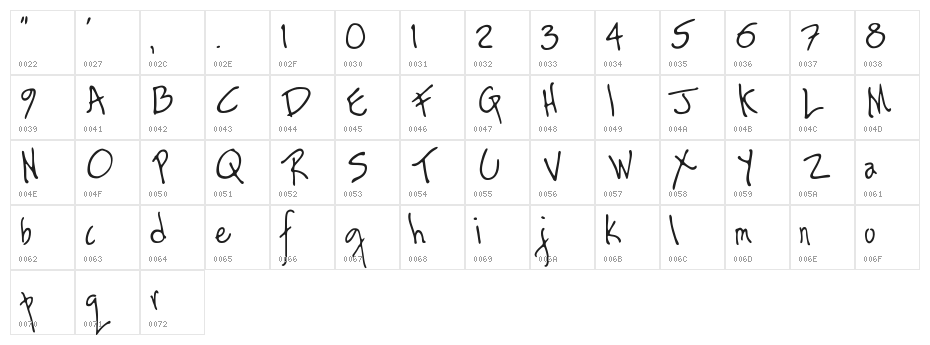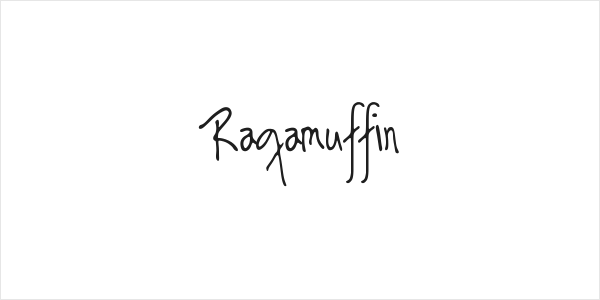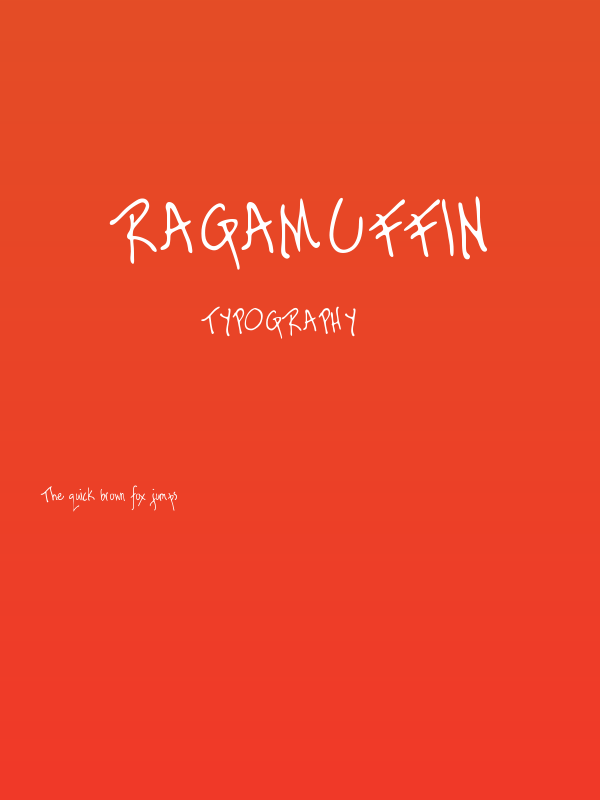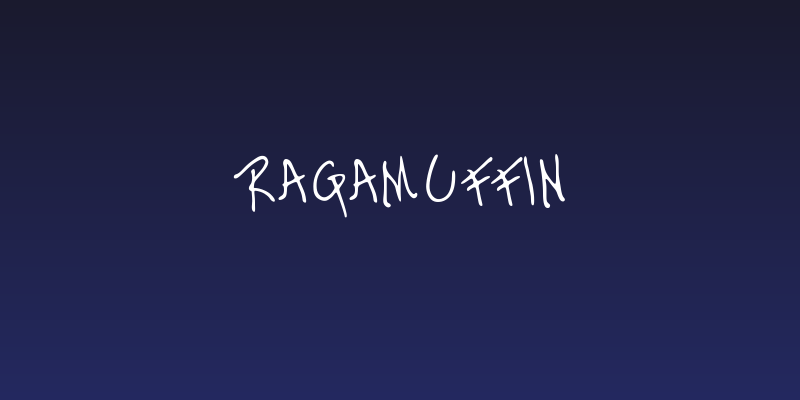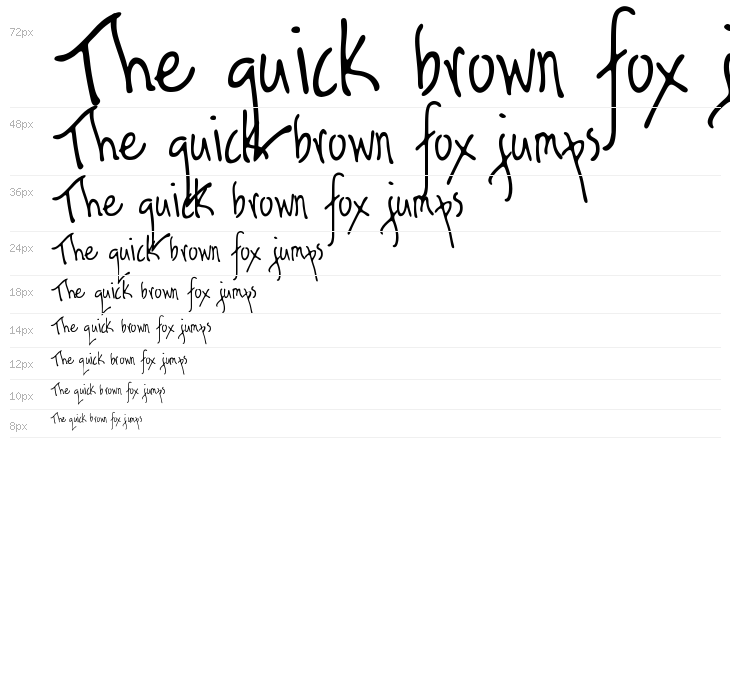
Ragamuffin Font
Ragamuffin Description
This font exudes a playful and casual handwritten style, characterized by its irregular strokes and informal appearance. The letters are slightly slanted, giving a dynamic and lively feel. The uppercase and lowercase letters maintain a consistent flow, with rounded edges and varying stroke widths that mimic natural handwriting. The numerals and special characters follow the same informal style, making the font versatile for creative projects. Its unique charm lies in its ability to convey a sense of spontaneity and personal touch, making it ideal for projects that require a human element.
| Use Case | Logos, Invitations, Personal notes |
| Proposed Projects | Ideal for greeting cards, personal notes, invitations, and creative branding projects. |